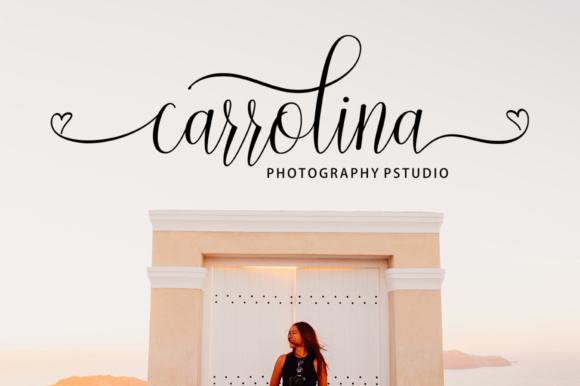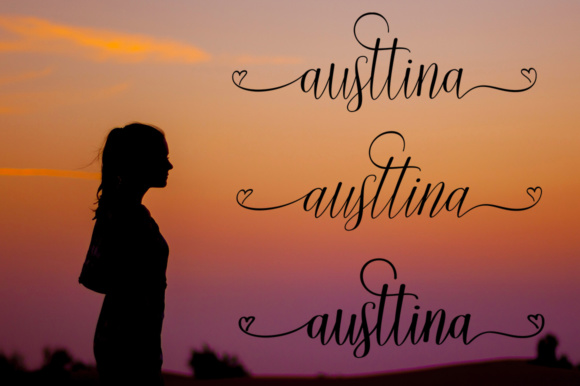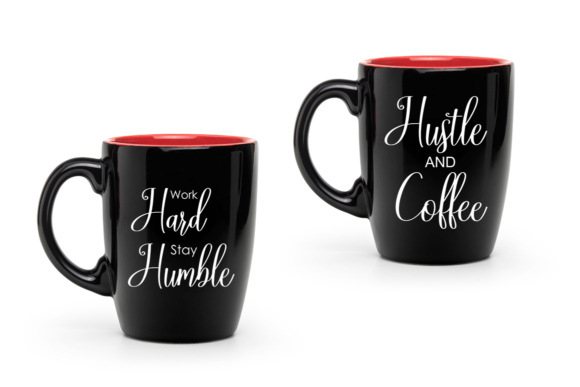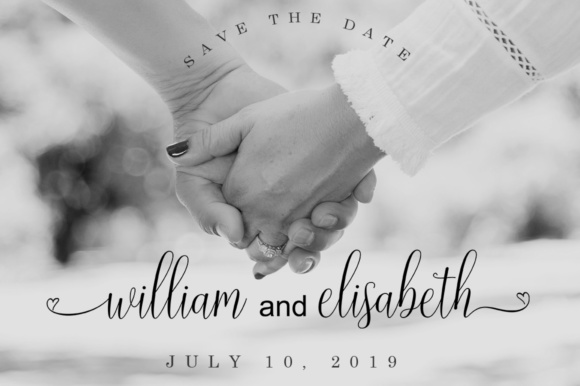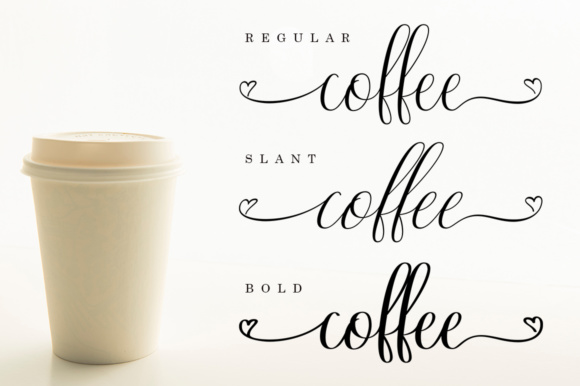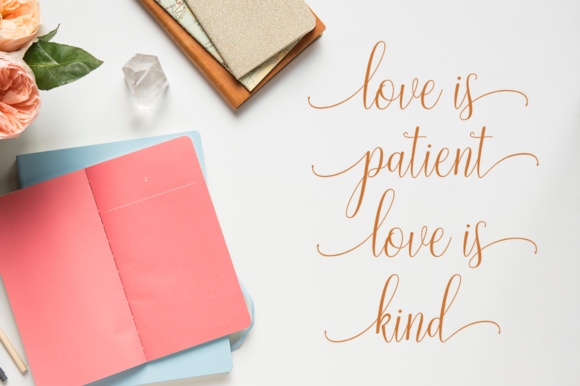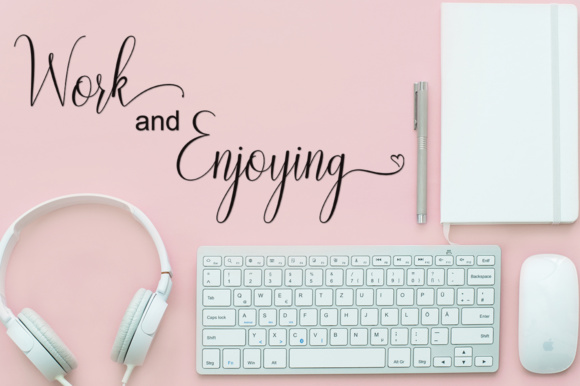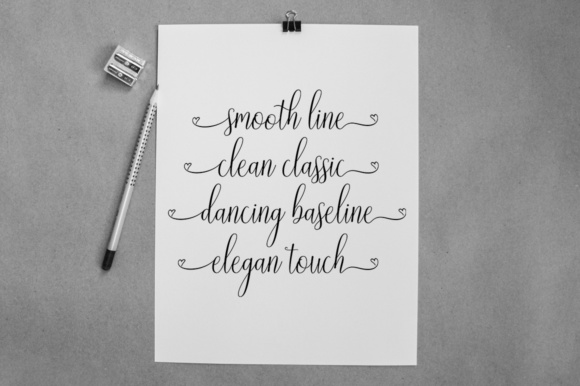
Austtina Font
About Austtina Font
Austtina is a sweet hand-lettered font trio. It has a dynamic dancing baseline, giving the font a casual feel.
It’s perfect for a large range of different projects, but works best for when you want to add an elegant or feminine touch to designs. It works great for wedding stationary, invites, thank you cards, bridal showers, but is of such a high quality, it can easily be used for branding stores, social media, and more.